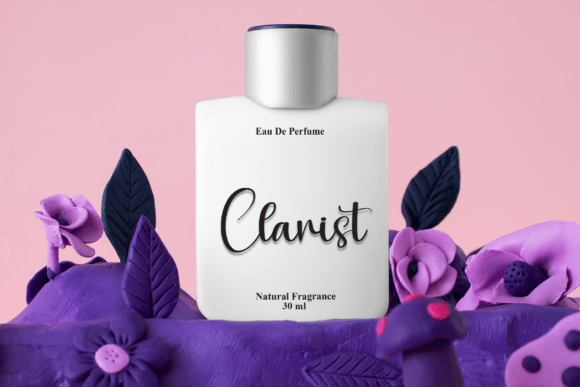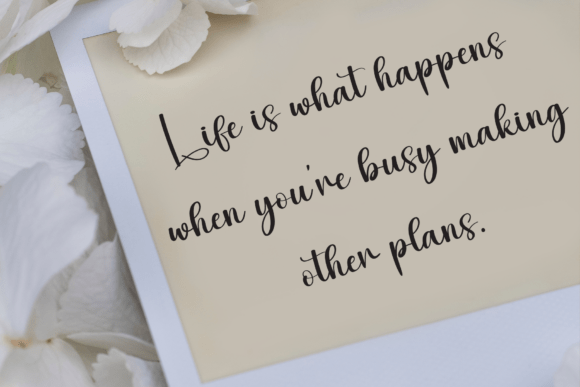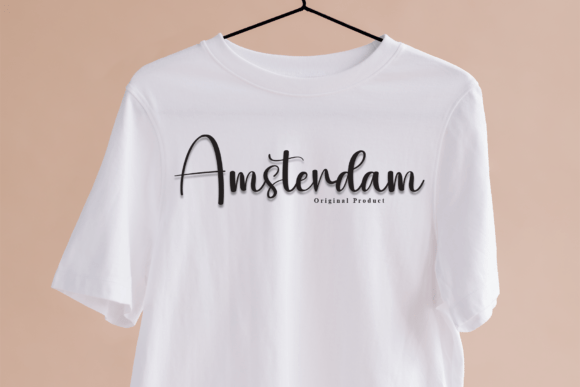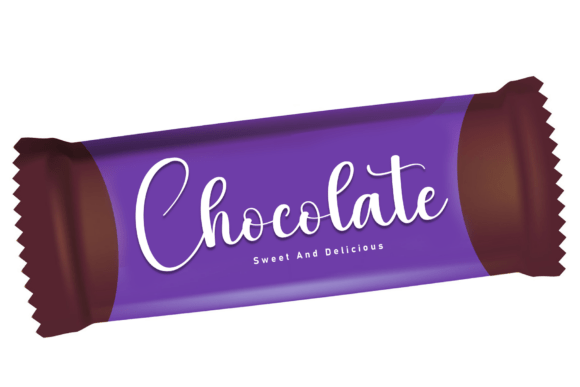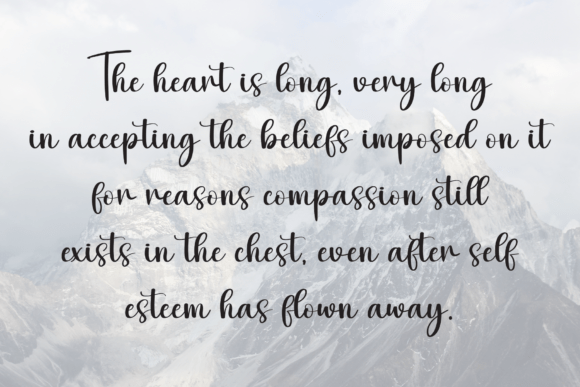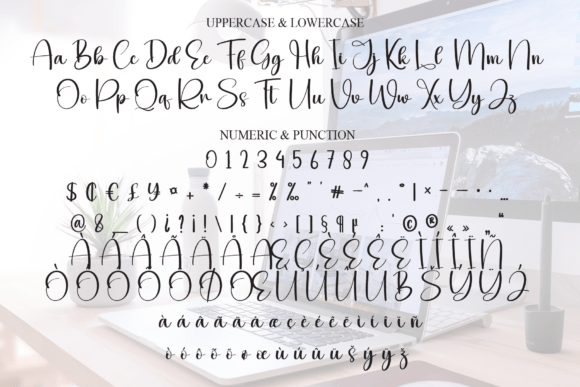
Elevate Your Designs with Digital Font: A Touch of Elegance and Charm
In the world of digital design, fonts play a crucial role in conveying the tone and personality of a brand or project. Among the numerous font options available, Digital Font stands out for its unique blend of elegance, charm, and playfulness. This versatile font is perfect for designers and crafters looking to add a touch of sophistication and warmth to their work.
The Beauty of Digital Font
Digital Font is a masterpiece of modern typography, boasting smooth, flowing strokes that exude a natural handwritten feel. Its organic and fluid design makes it an excellent choice for a wide range of applications, from logos and branding to invitations, greeting cards, and social media graphics. This font’s unique character lies in its ability to balance playfulness with sophistication, making it an ideal choice for designers seeking to create visually stunning and engaging content.
Digital Font’s versatility is one of its most significant advantages. Its elegant and charming design makes it suitable for various design projects, including:
- Logos: Create a lasting impression with a logo that showcases your brand’s personality and style.
- Invitations: Add a touch of sophistication and elegance to your event invitations, making them truly unforgettable.
- Greeting Cards: Convey your emotions and sentiments with beautifully designed greeting cards that speak from the heart.
- Branding: Establish a strong brand identity with Digital Font’s unique and recognizable style.
- Quotes: Highlight your favorite quotes and make them visually stunning with Digital Font’s elegant design.
- Social Media Graphics: Elevate your social media presence with eye-catching graphics that showcase your brand’s personality.
Why Choose Digital Font?
With so many fonts available, why choose Digital Font? Here are a few compelling reasons:
- Unique Character: Digital Font’s distinctive design sets it apart from other fonts, ensuring your work stands out from the crowd.
- Playful yet Sophisticated: This font strikes the perfect balance between playfulness and sophistication, making it suitable for a wide range of design projects.
- Easy to Read: Digital Font’s clear and flowing strokes make it easy to read, even at smaller font sizes.
- Versatile: This font can be used for both digital and print projects, making it a valuable addition to your design arsenal.
Tips for Using Digital Font Effectively
To get the most out of Digital Font, consider the following tips:
- Experiment with Font Sizes: Digital Font looks great at various font sizes, so don’t be afraid to experiment and find the perfect size for your project.
- Pair with Other Fonts: Combine Digital Font with other fonts to create a unique and visually appealing typography.
- Use it for Headings and Titles: Digital Font’s elegant design makes it perfect for headings and titles, adding a touch of sophistication to your work.
Digital Font is a powerful tool for designers and crafters looking to add a touch of elegance, charm, and personality to their work. Its smooth, flowing strokes and natural handwritten feel make it perfect for a wide range of design projects. With its versatility, unique character, and ease of use, Digital Font is an excellent addition to any design arsenal. So why not give it a try and elevate your designs to the next level?